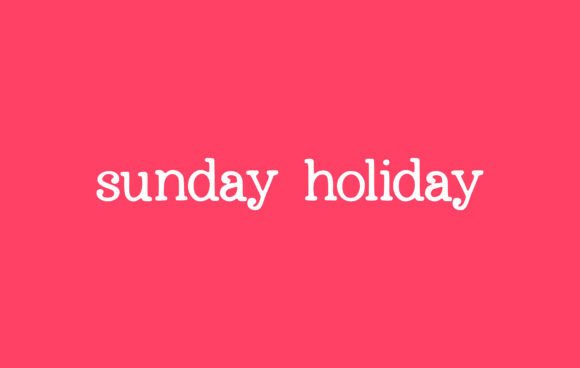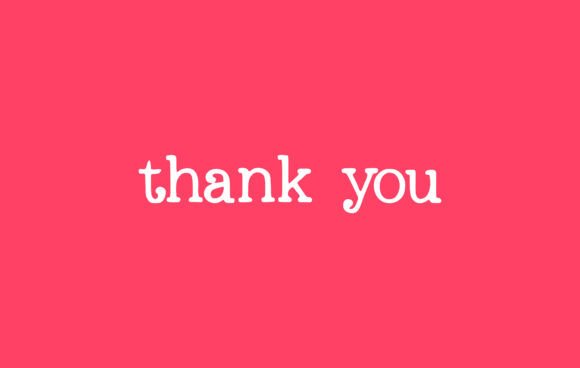
Introduction to Old Soul Serif Font
Old Soul Serif is a nostalgic yet elegant serif font with soft curves and subtle vintage character.
Perfect for editorial designs, poetic titles, timeless branding, and nostalgic packaging .
Key Features of Old Soul Serif Font
Why Choose Old Soul Serif Font?